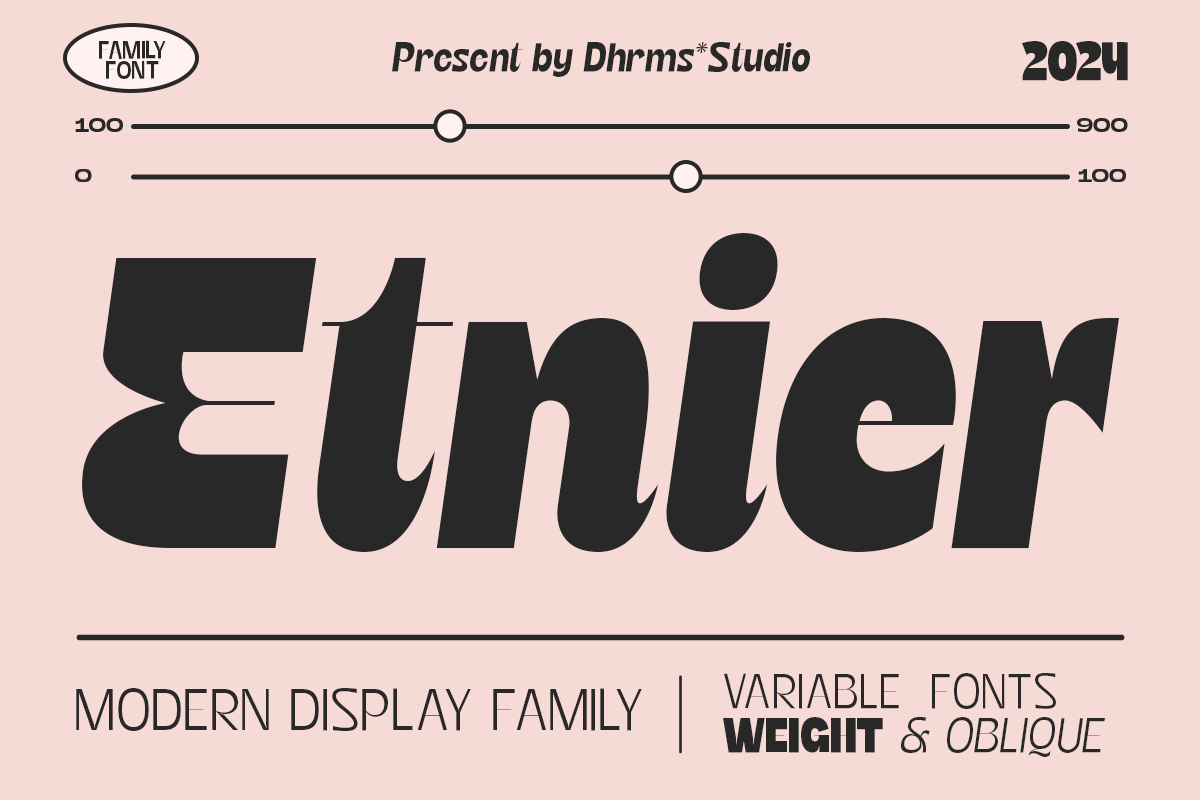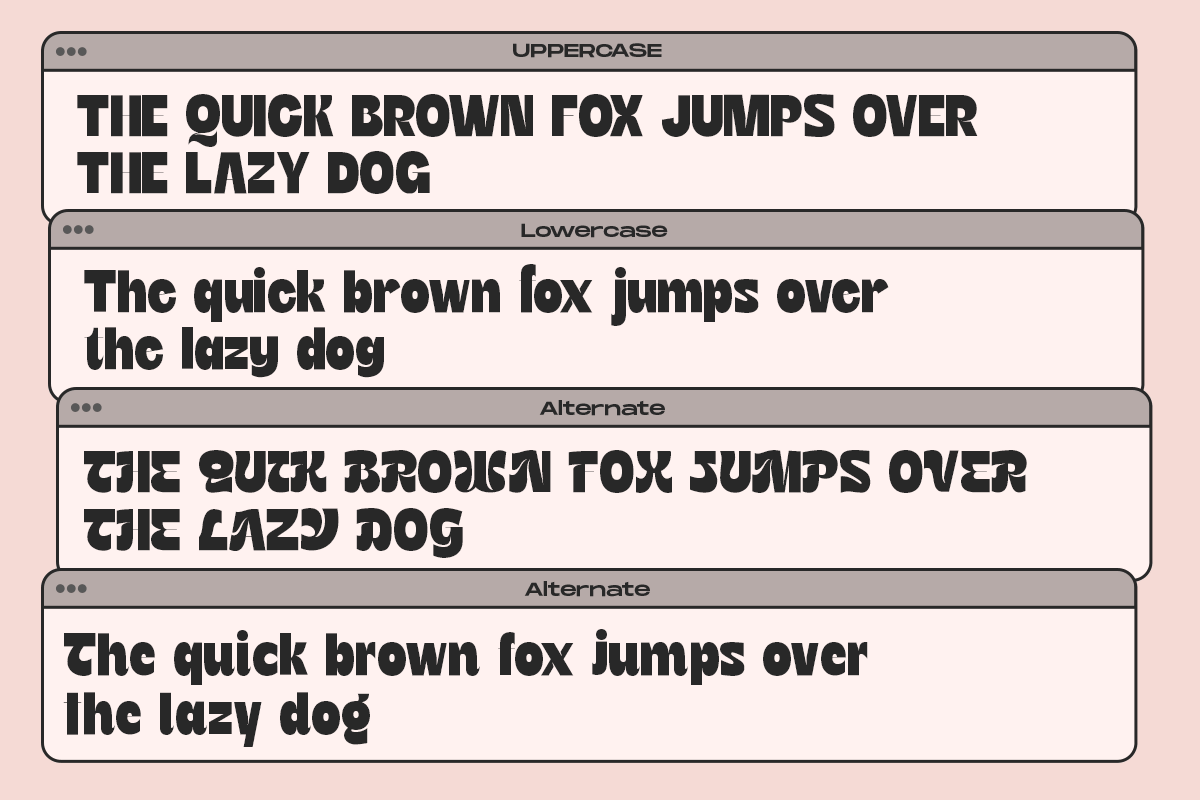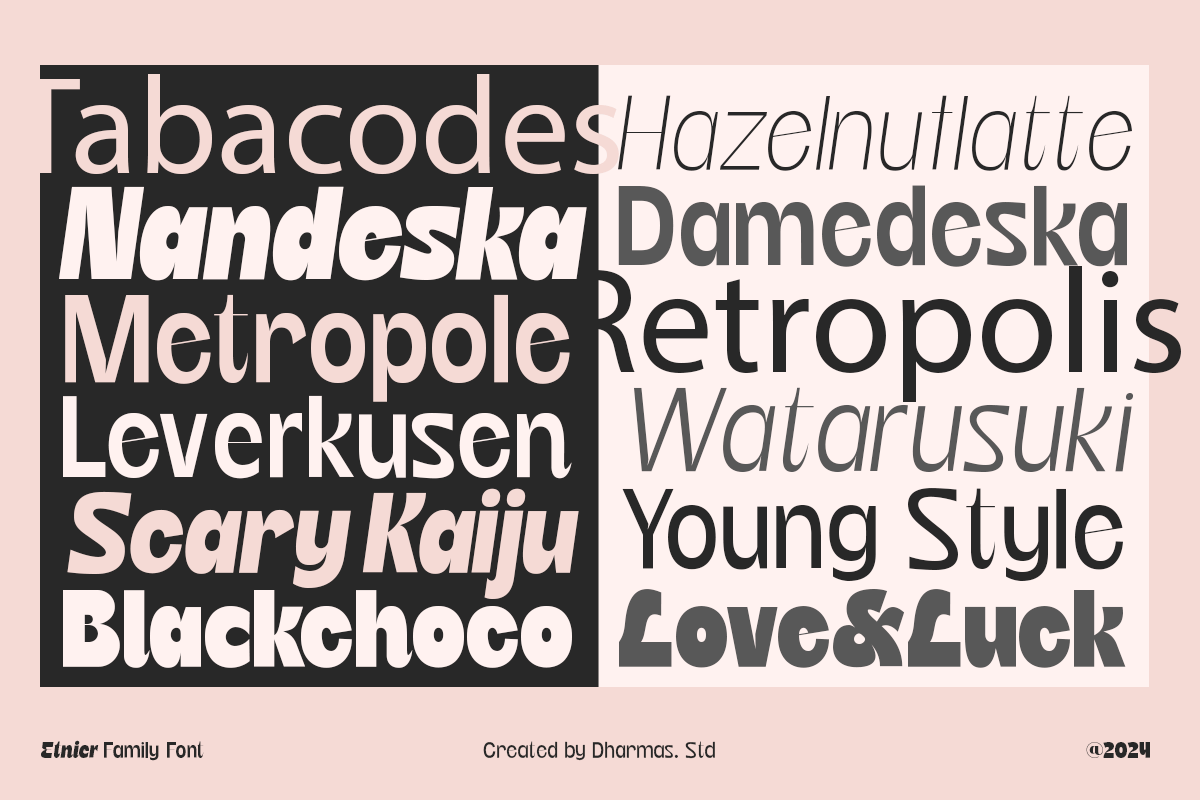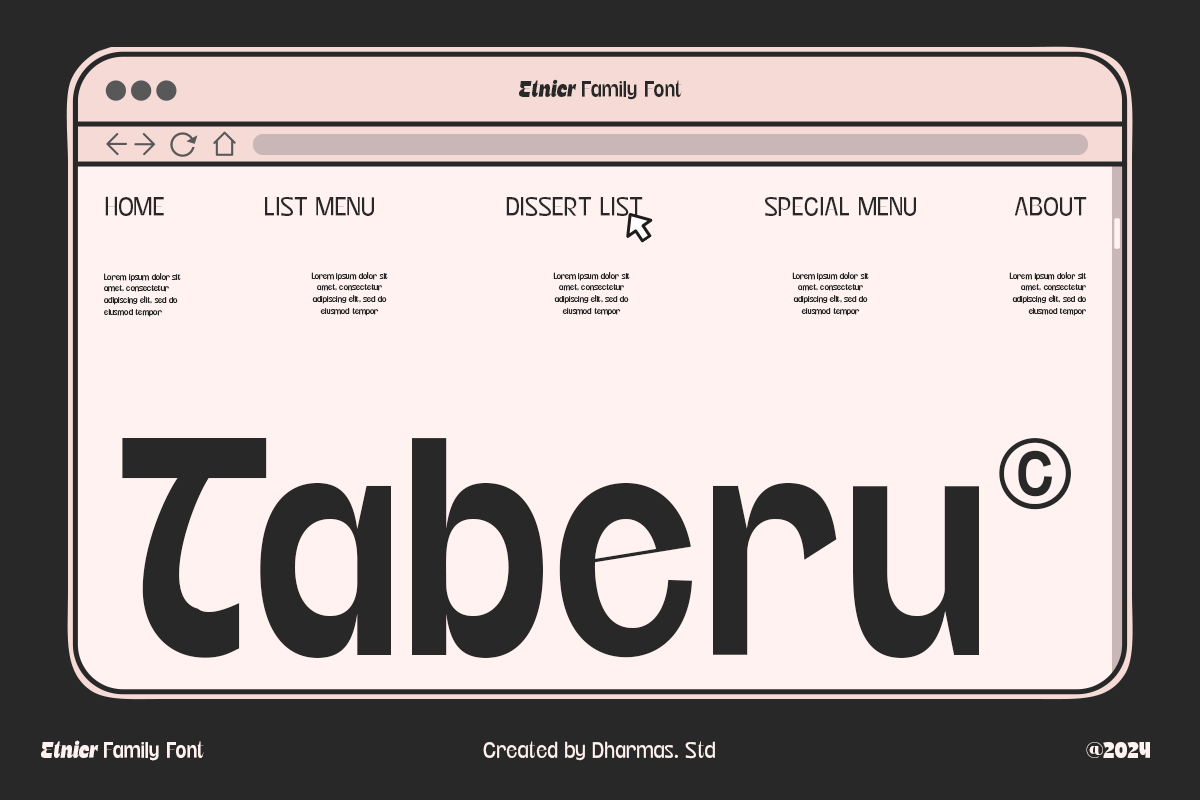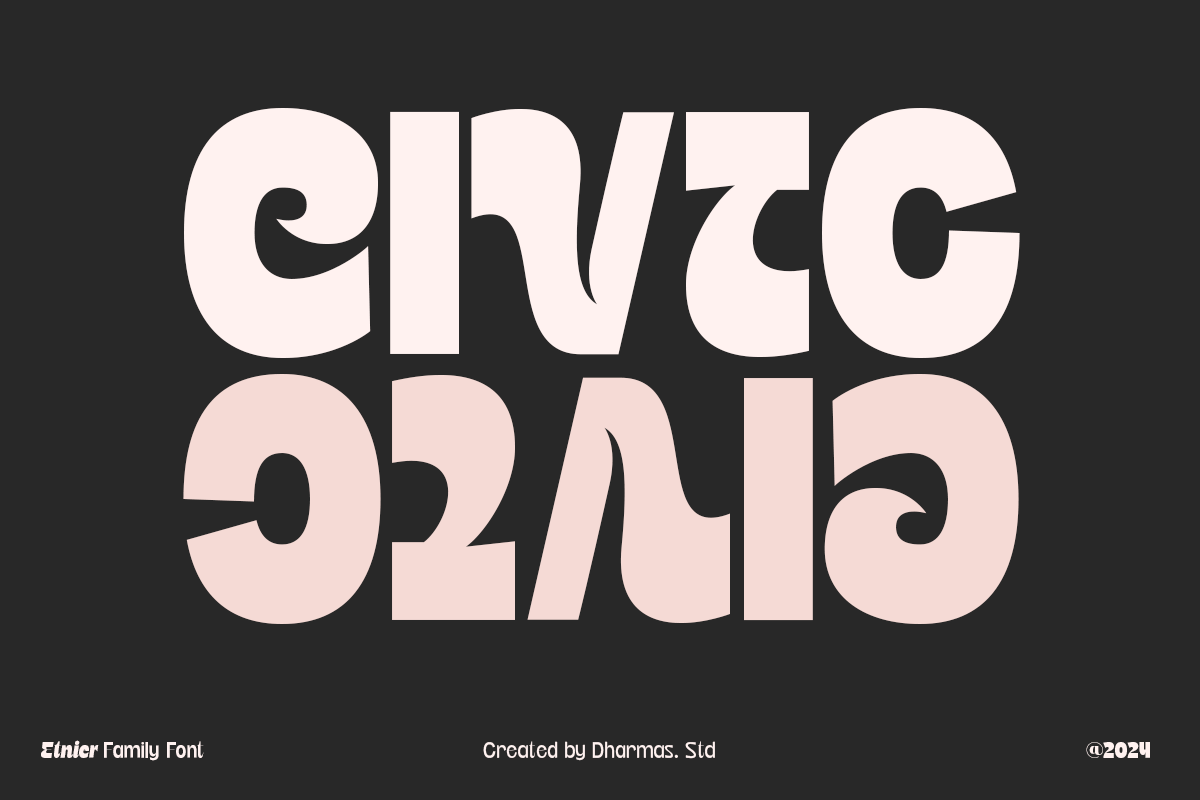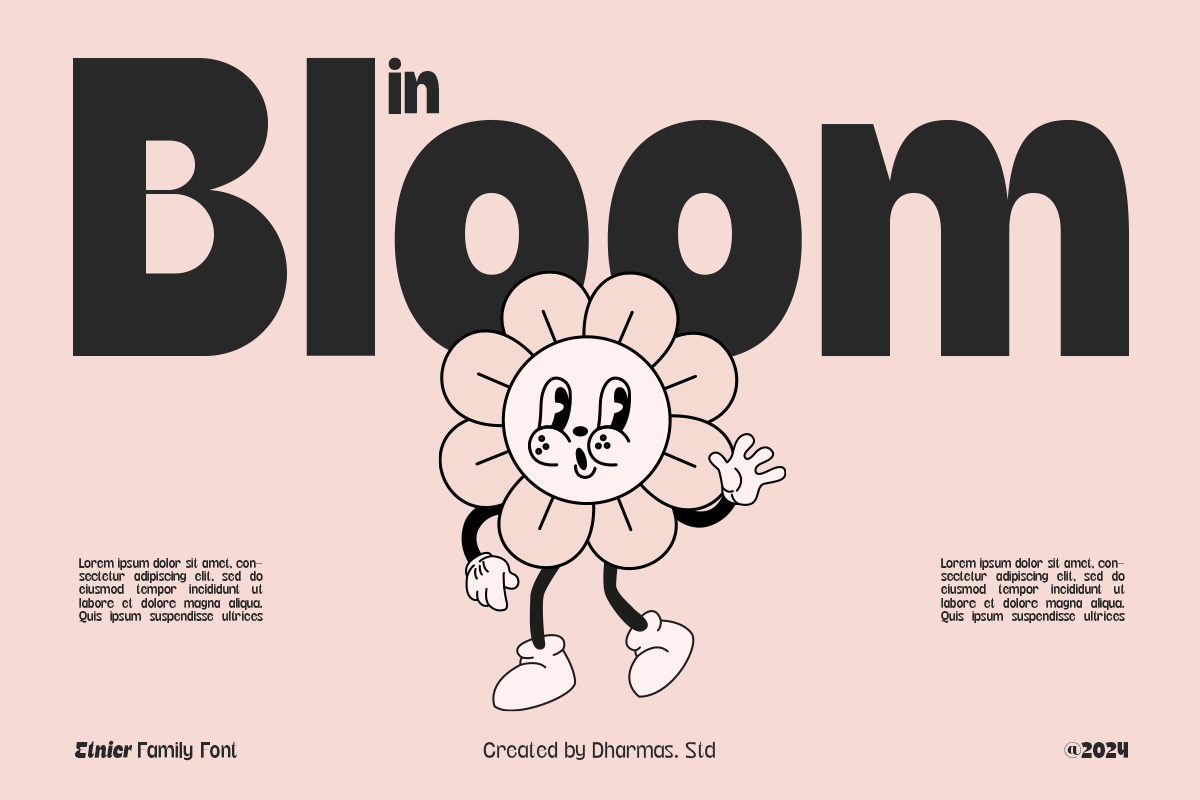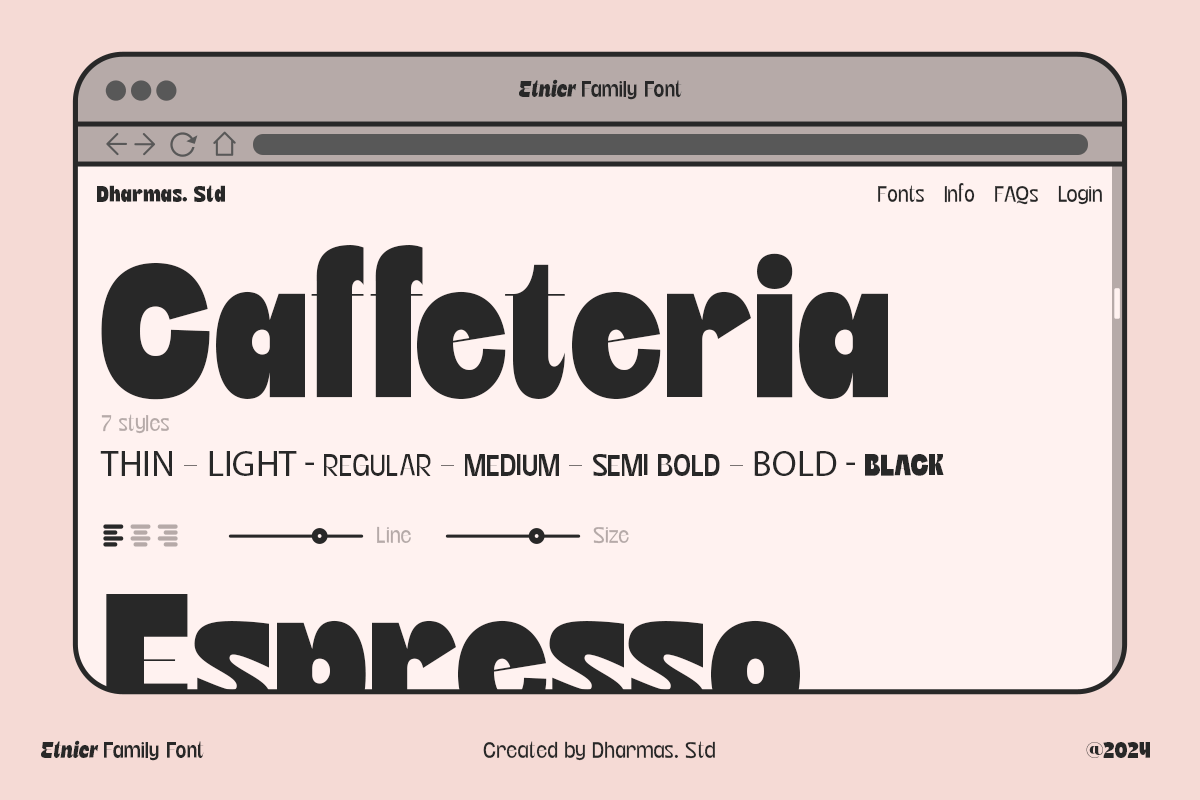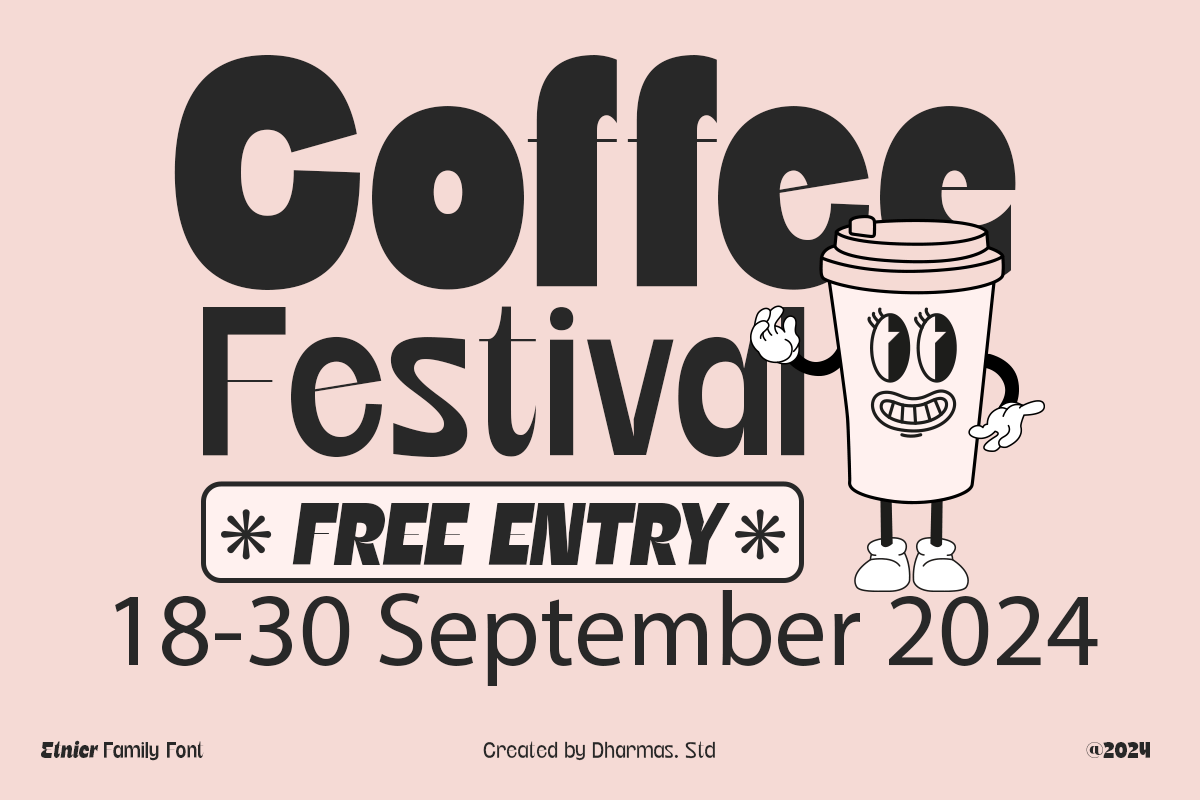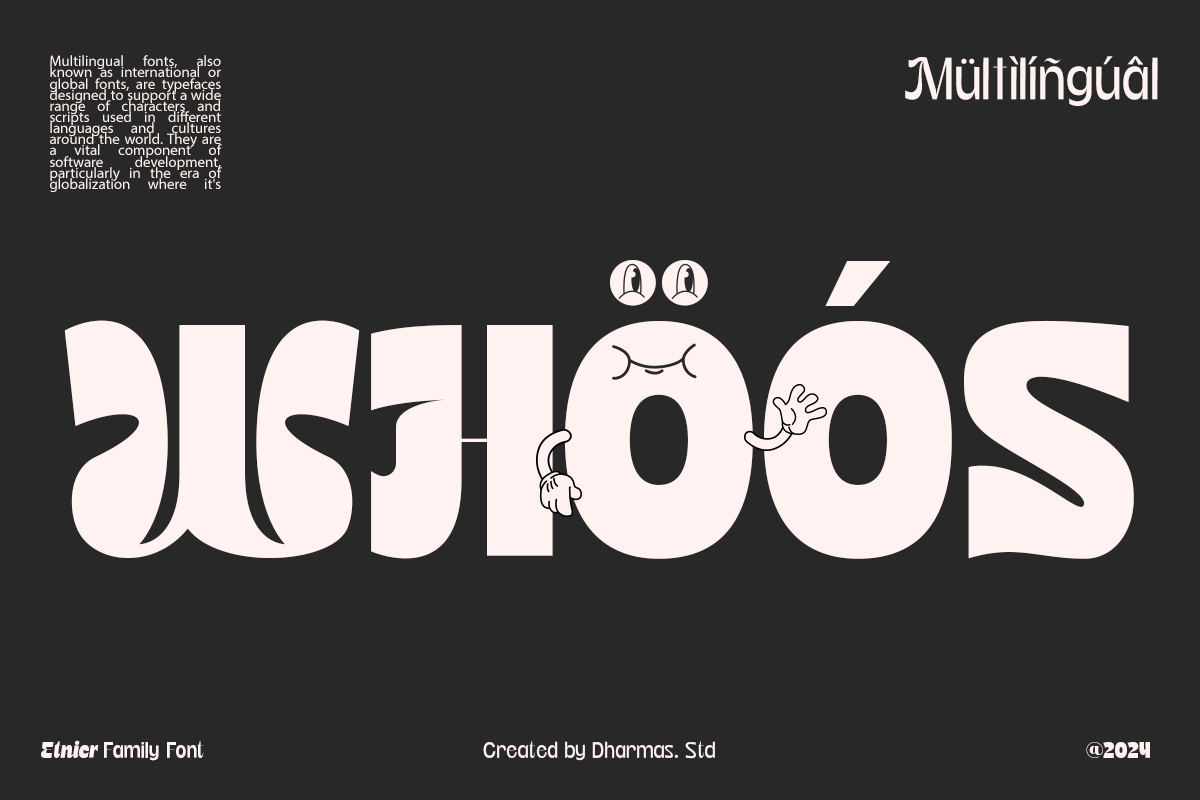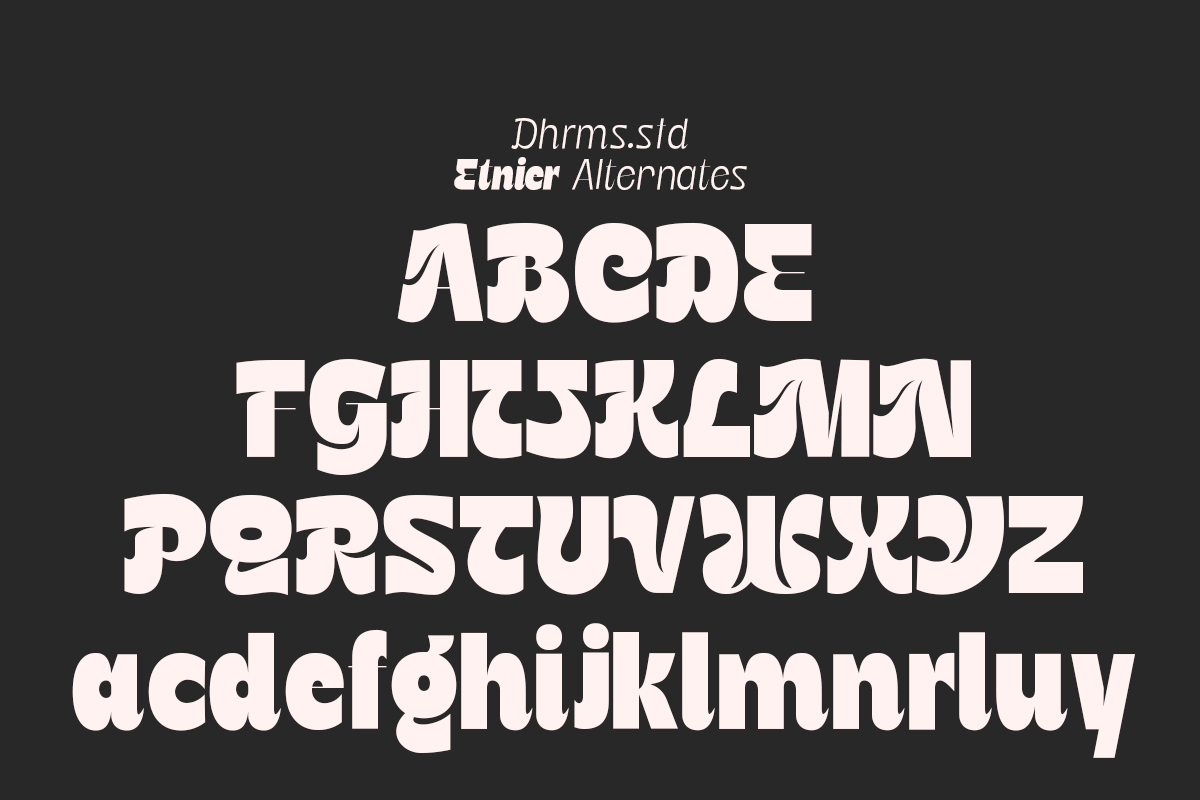
Etnier – Modern Display Font
Introducing Etnier – A brand-new modern family with a unique!
Etnier is a modern variable font. Essentially, it’s a sans-serif font with a sturdy and squared appearance, ensuring excellent legibility. It offers various widths and italics that provide versatility for your designs. The bolder, the stronger – this defines Etnier. Its bold and robust qualities, especially in the italic version, make it ideal for UI/UX-related designs.
- 14 fonts family with Weight and Oblique options
Language Support: Danish, English, Estonian, Filipino, Finnish, French, Friulian, Galician, German, Gusii, Indonesian, Irish, Italian, Luxembourgish, Norwegian Bokmål, Norwegian Nynorsk, Nyankole, Oromo, Portuguese, Romansh, Rombo, Spanish, Swedish, Swiss-German, Uzbek (Latin)